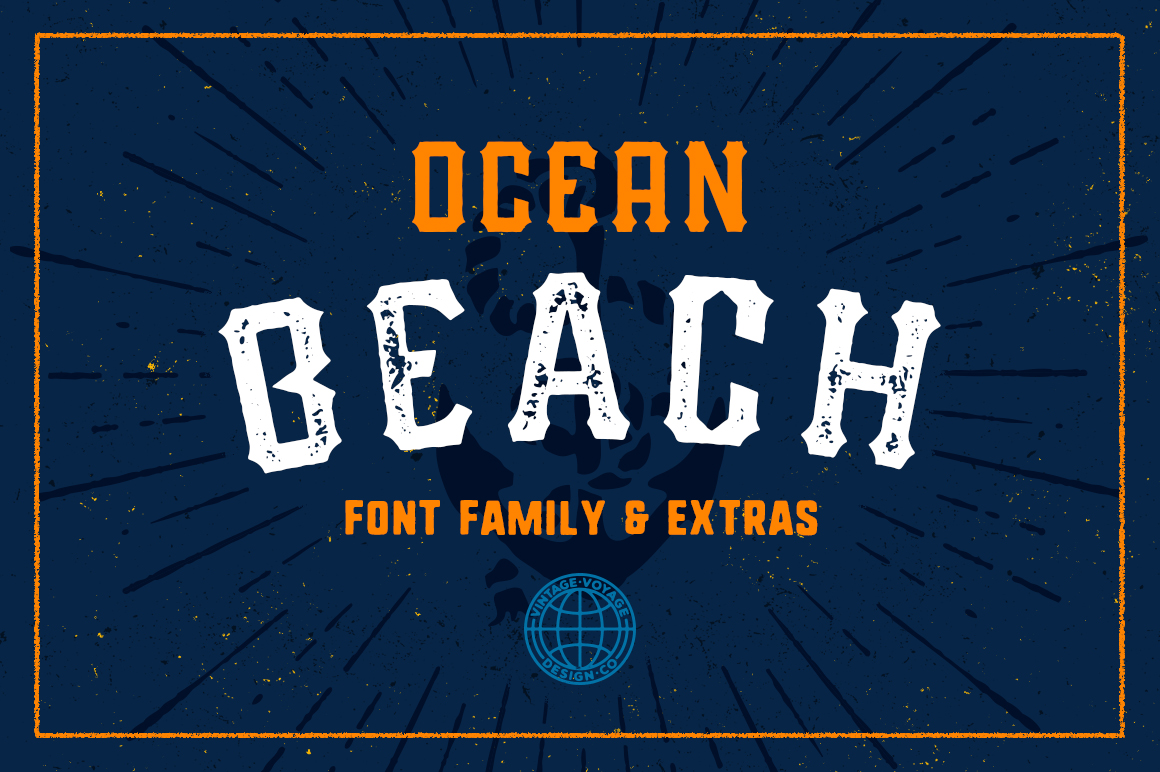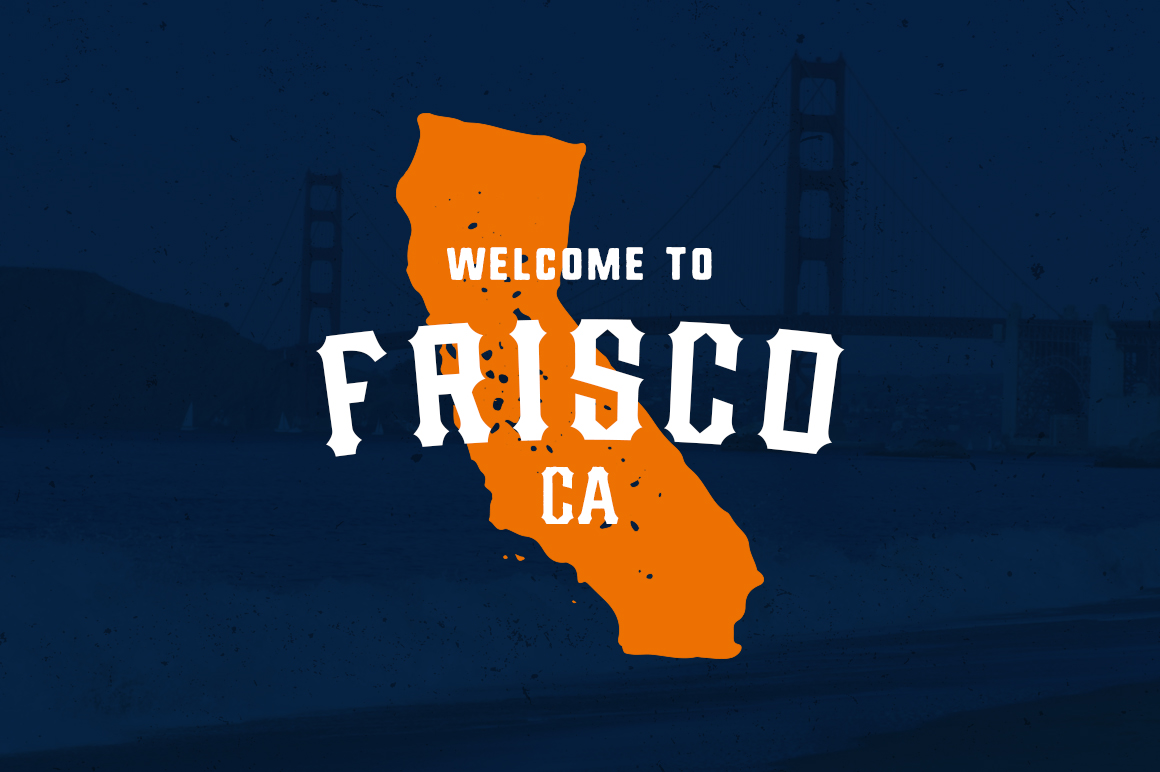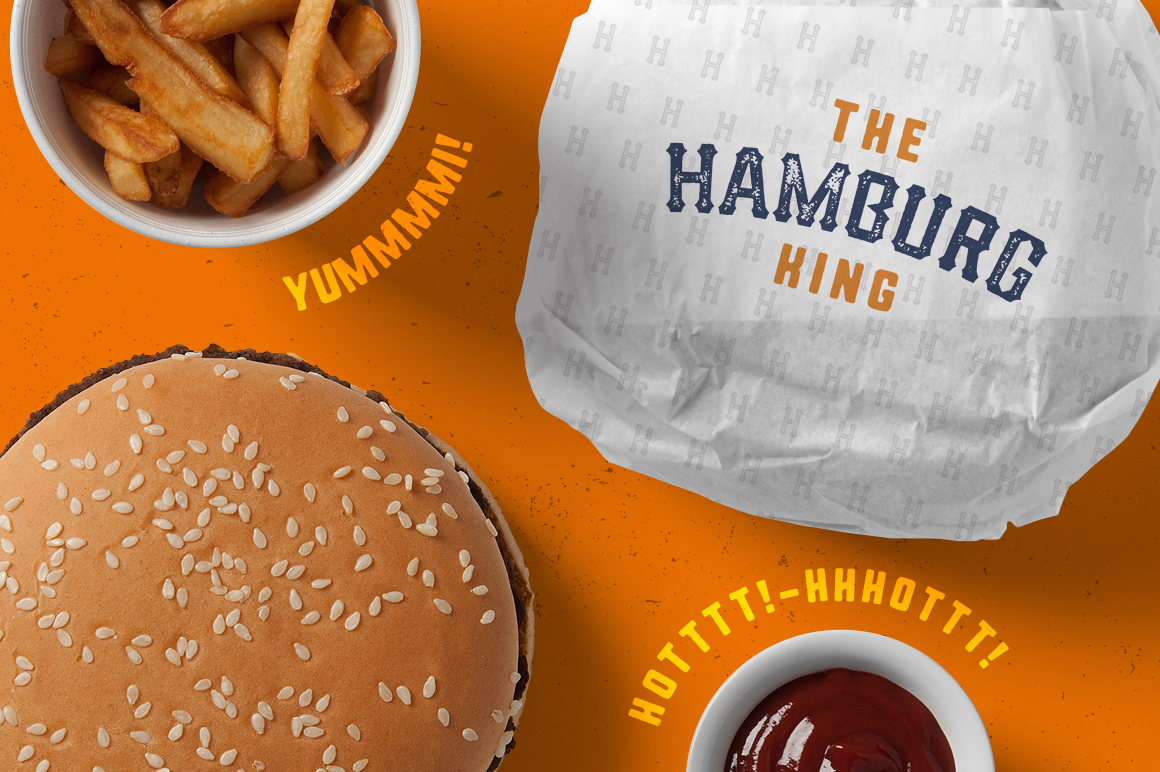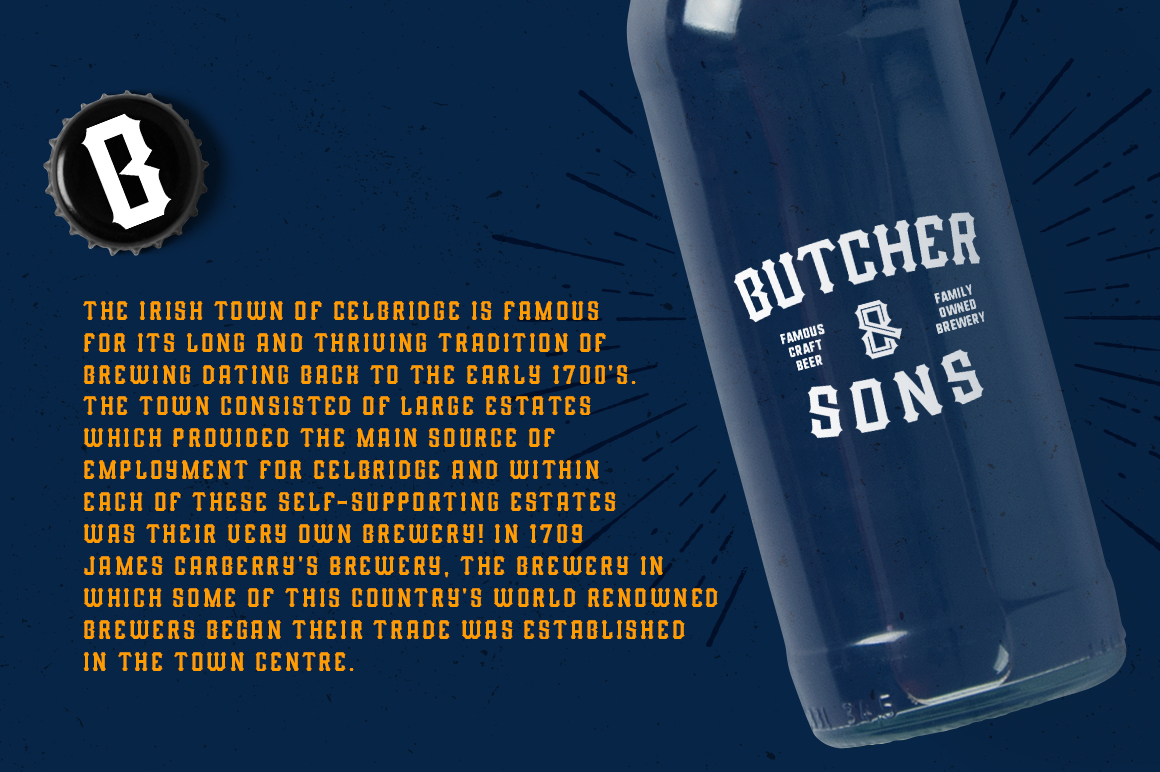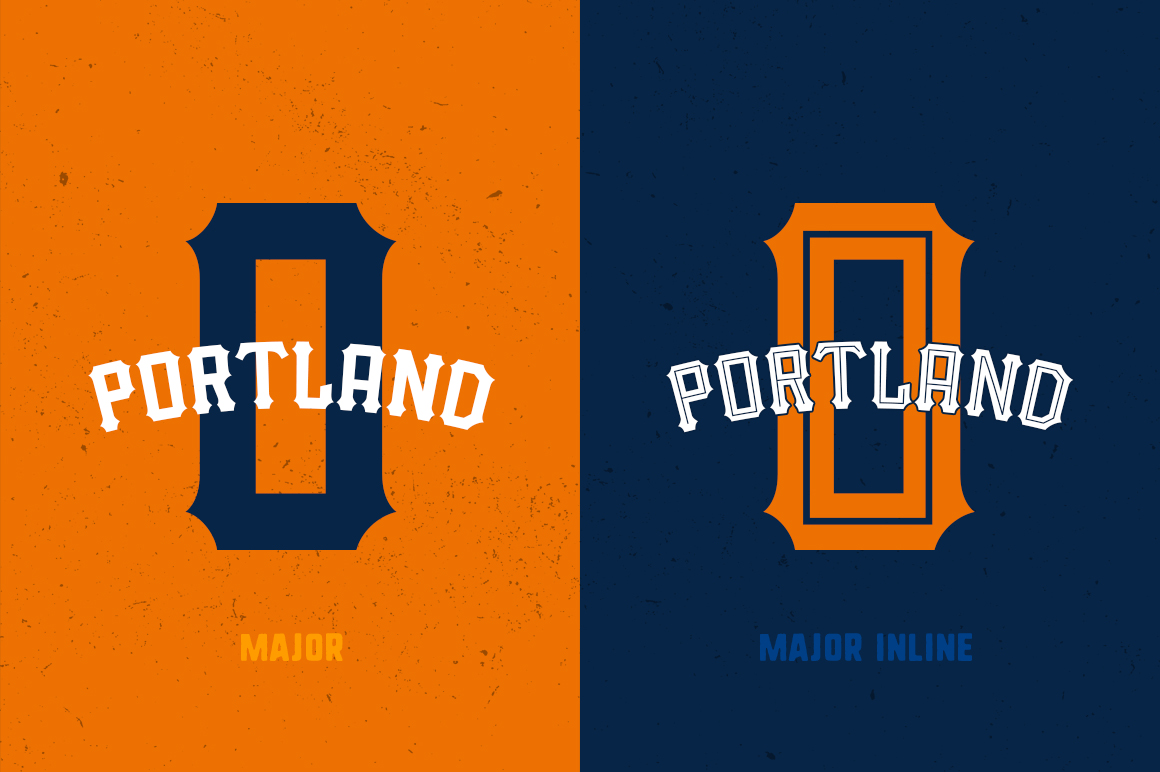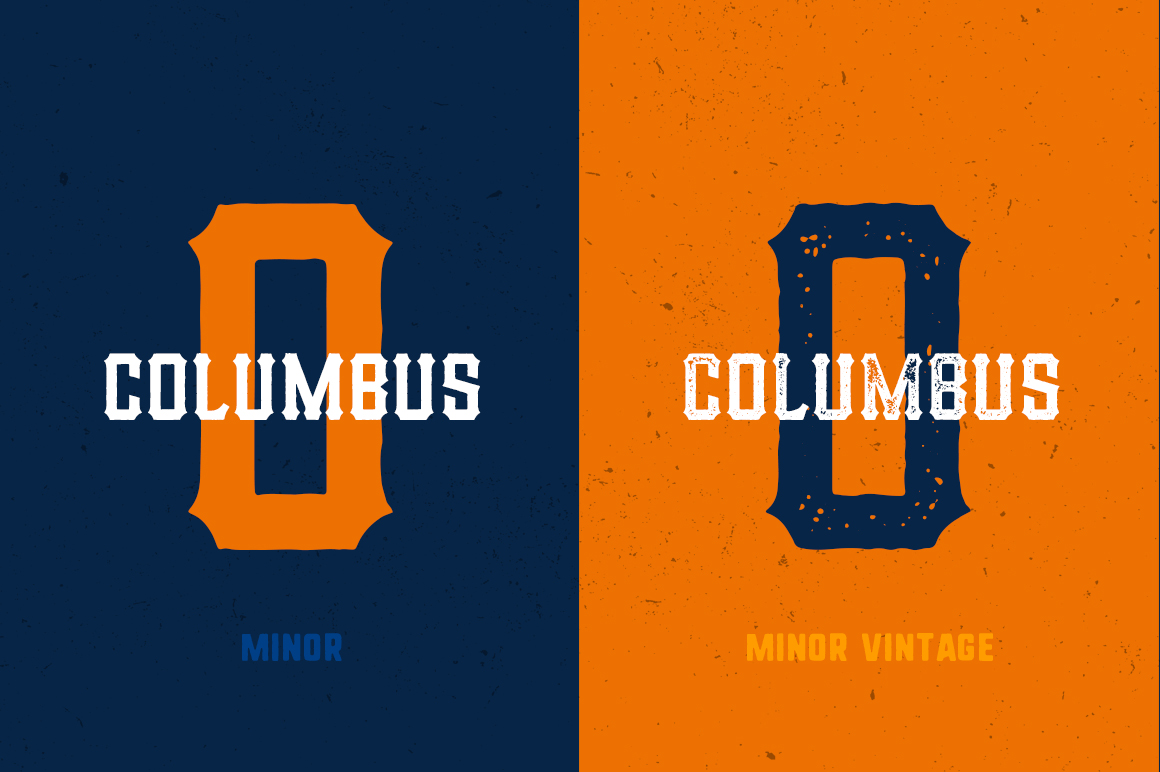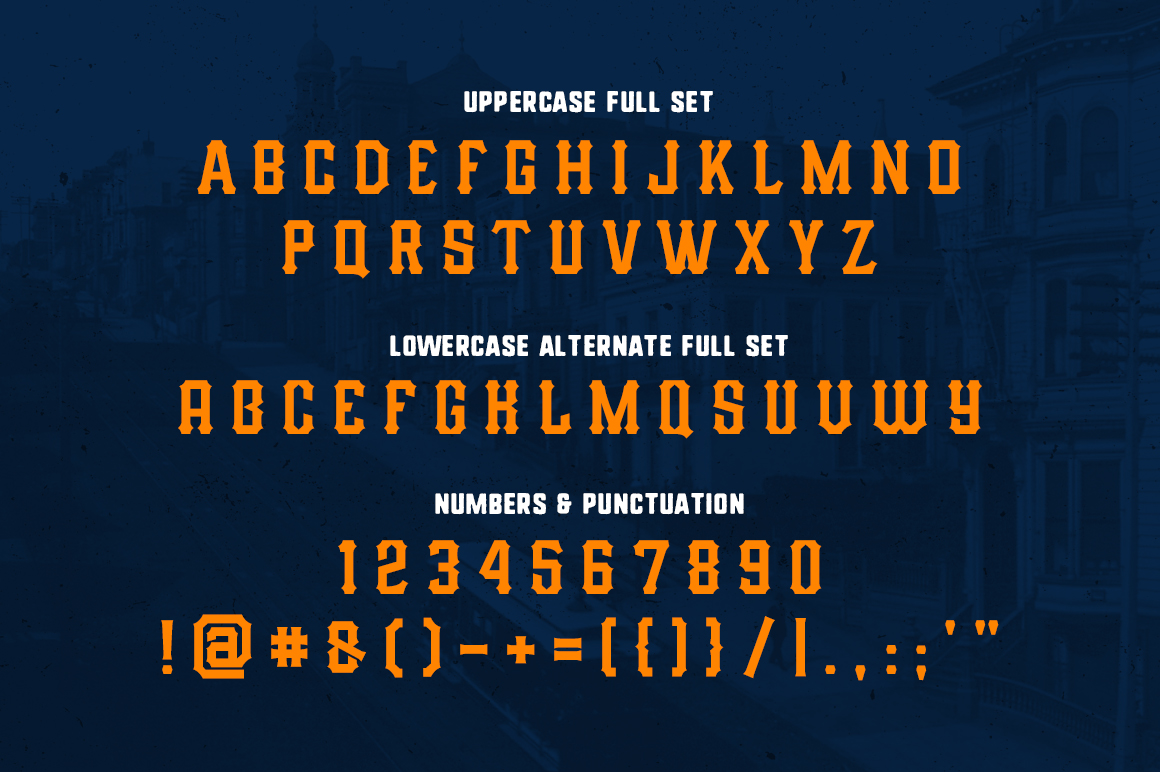
Ocean Beach
Ocean Beach Major
Ocean Beach Major Inline
Ocean Beach Minor
Ocean Beach Minor Vintage
Ocean Beach is a vintage typeface inspired by mid-20th-century American style. Reflects the spirit of California jerseys, meet houses, breweries, car and bike shops, and punk and rock band aesthetics. Designed for bold, nostalgic visuals with a strong personality. Ideal for vintage logos, posters, t-shirt prints, and signage. Built to bring classic Americana to any creative project.